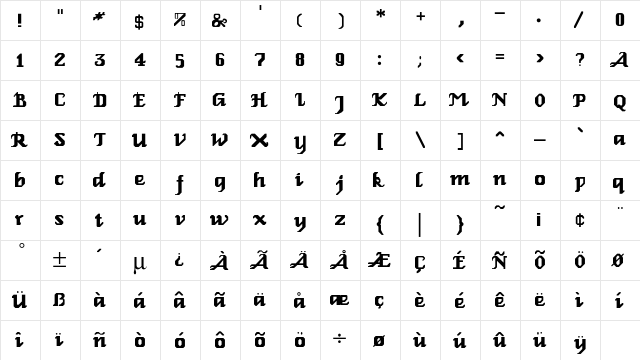
Relbe-Roman Regular
Design Context for Relbe-Roman Typeface
Relbe-Roman is a composed and adaptable typeface that performs quietly and consistently across a wide range of design contexts.
Pro Tip: Use Relbe-Roman in both headline and body roles to test its range before committing to a single application.